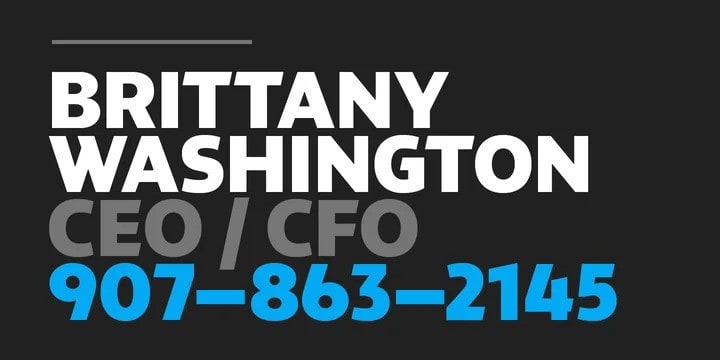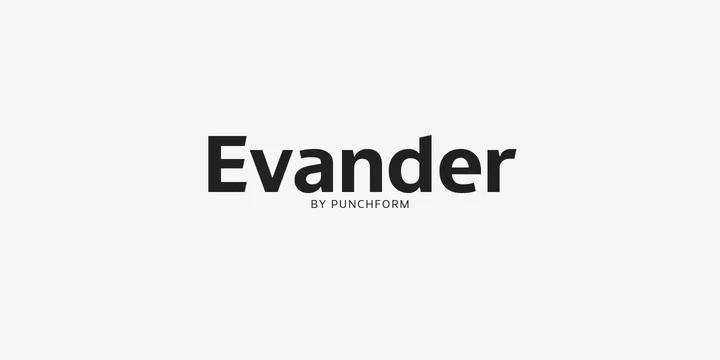
Evander Sans Serif Font
Evander Sans Serif Font is a clean modern and geometric sans serif typeface inspired by industrial design and technical fonts. It’s designed and shared by sartstudio. This font is a humanist sans serif font family designed by Mihai Sorin and released by Punchform in 2020. Its design is neutral, clean, and modern, making it a perfect selection for a wide variety of creative graphic design projects: